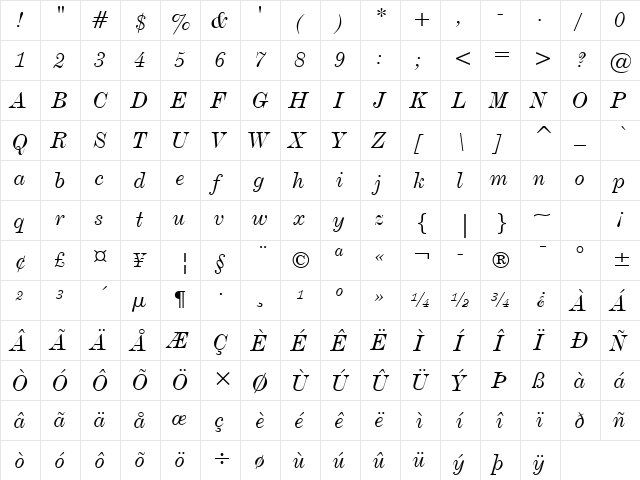
DeVinne BT Italic
Design Context for DeVinne BT Typeface
DeVinne BT takes a measured approach to typography — its balanced proportions and neutral character make it a reliable workhorse for both digital and print work. Its italic angle brings a sense of urgency and motion to the letterforms.
Pro Tip: Use DeVinne BT for emphasis, pull quotes, and subheadings where its slanted energy can add rhythm to the layout.